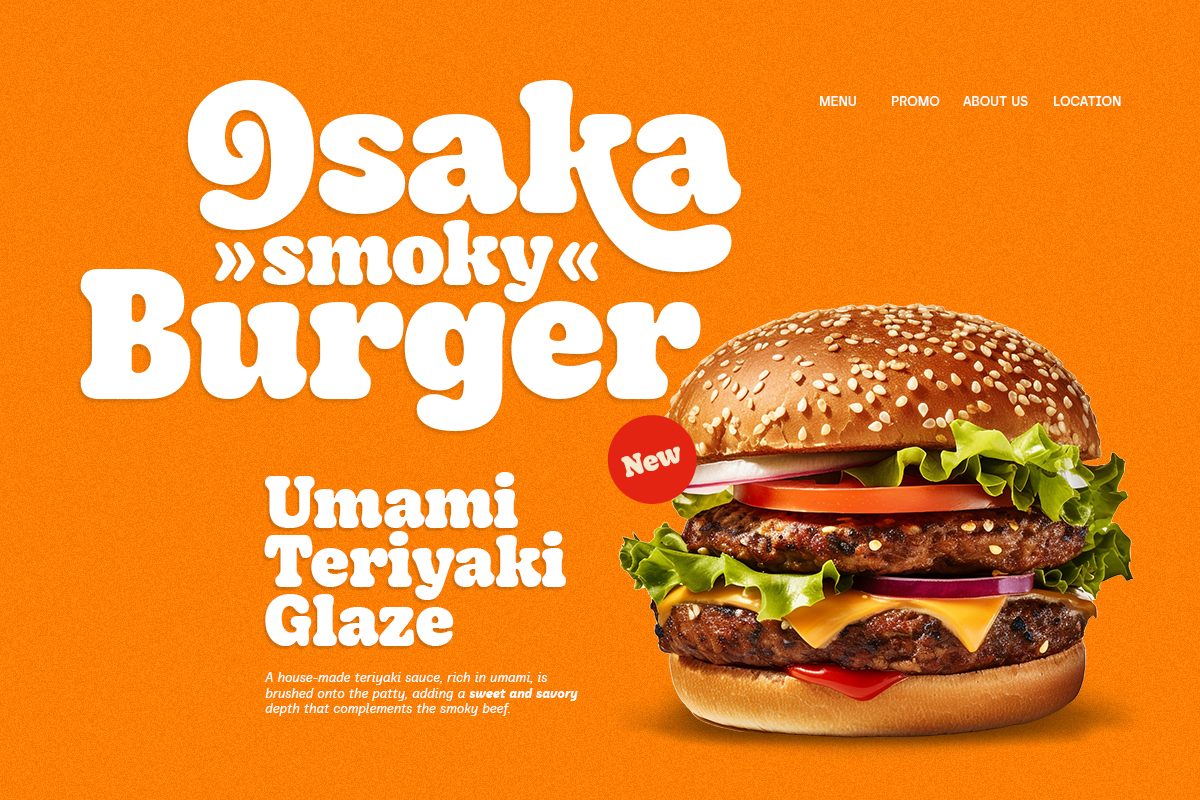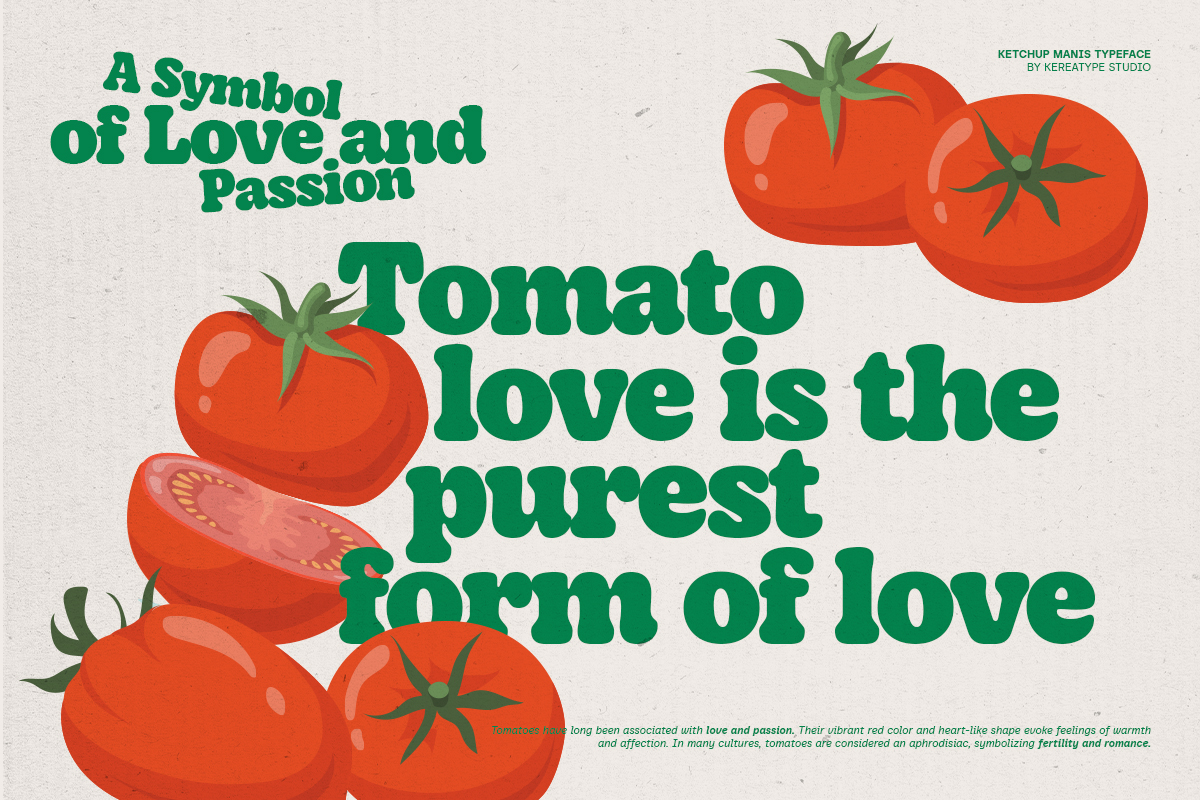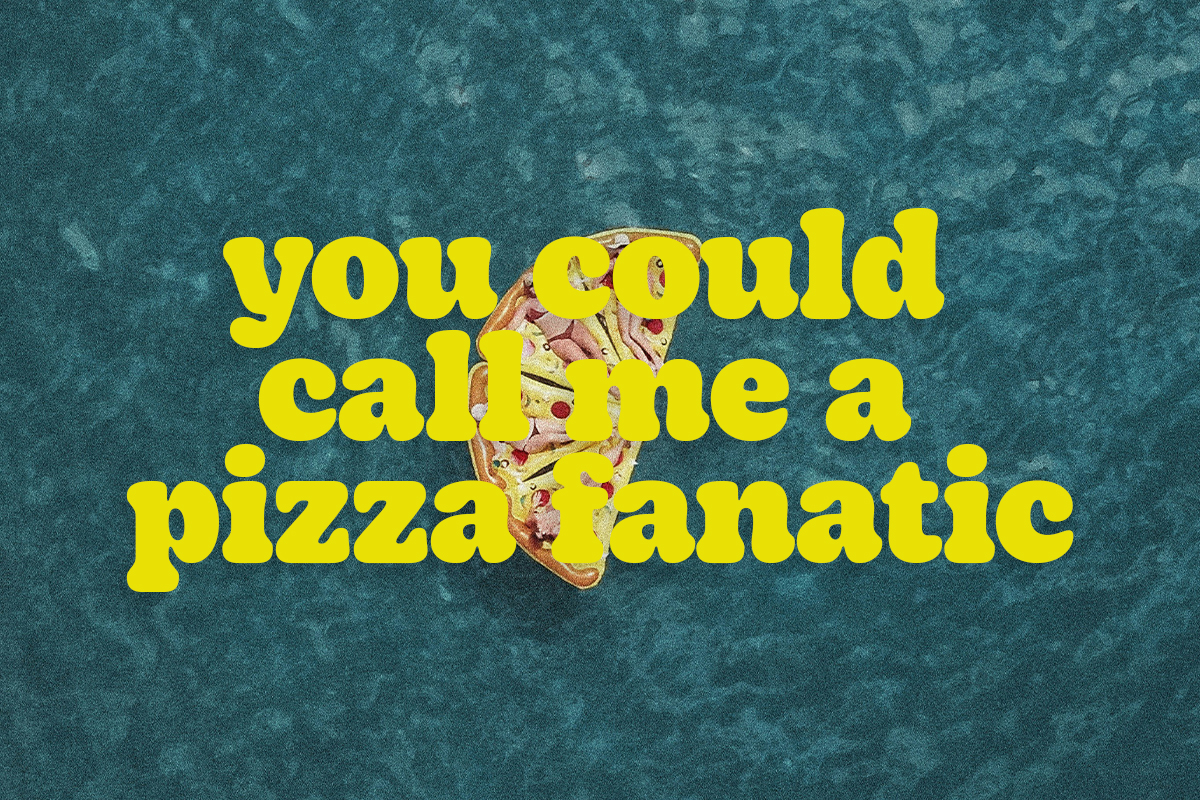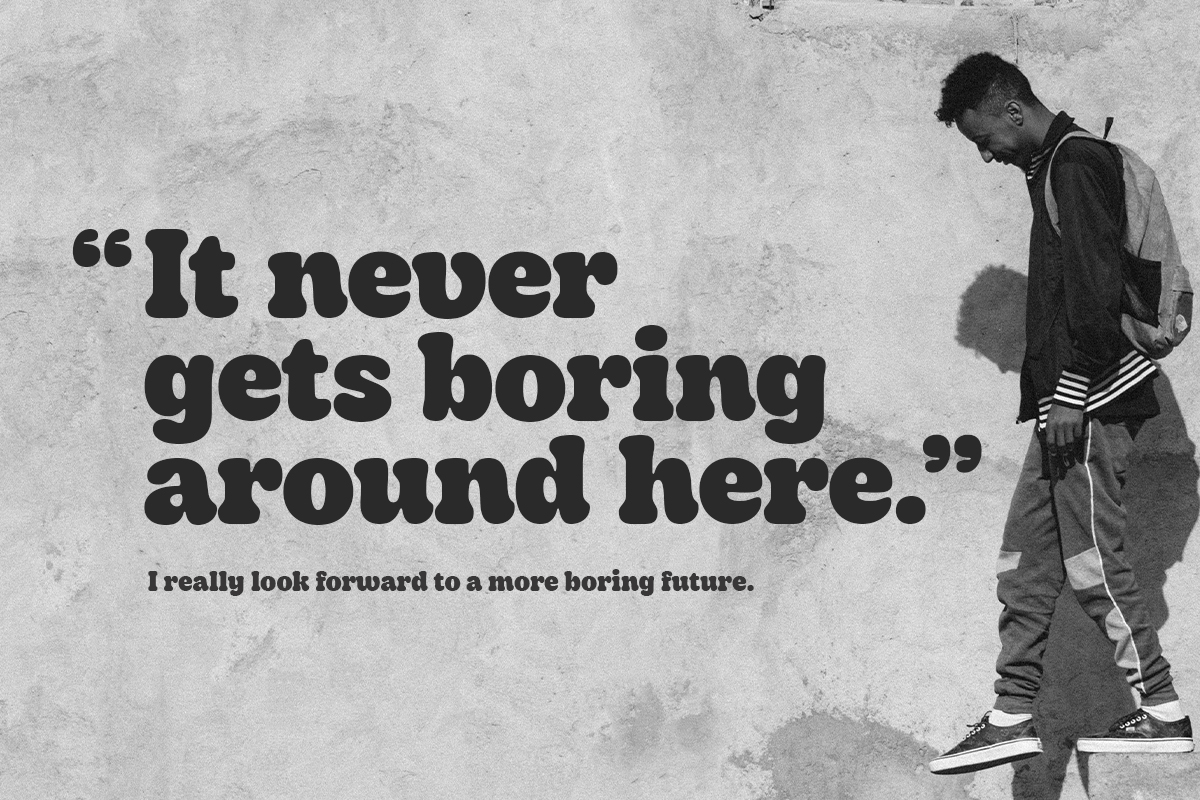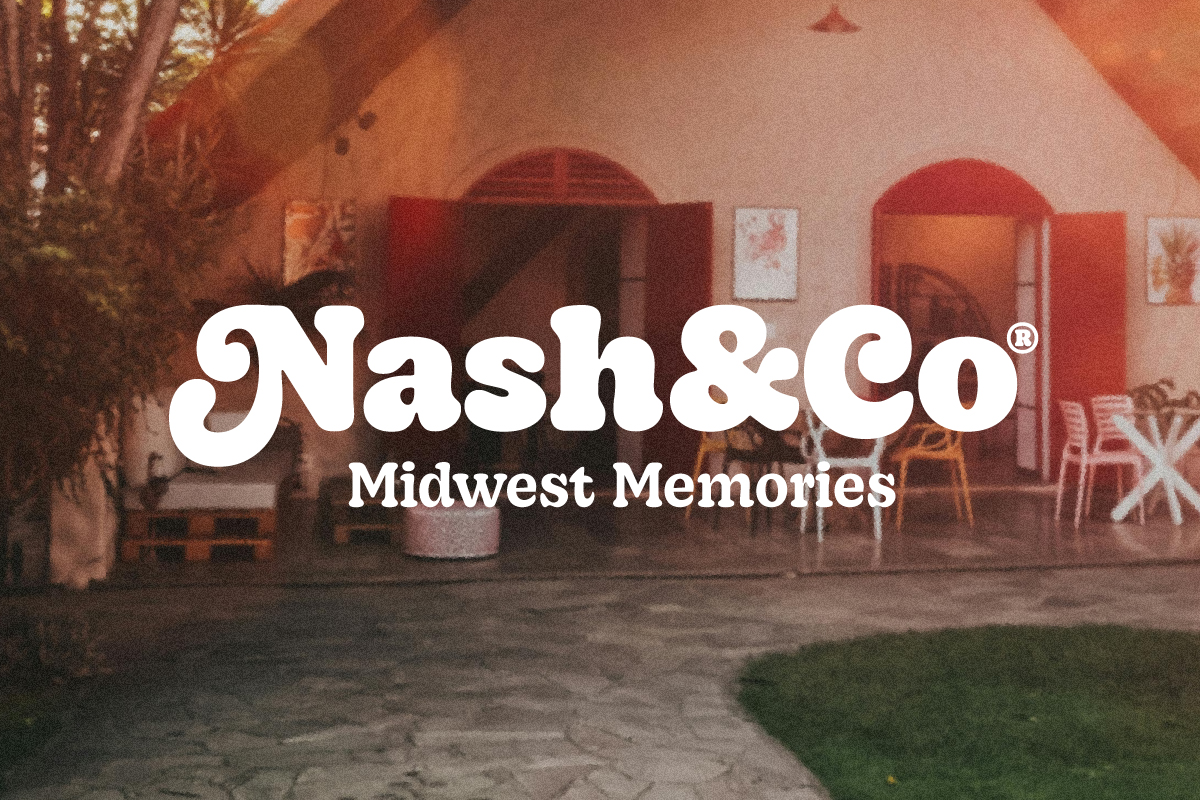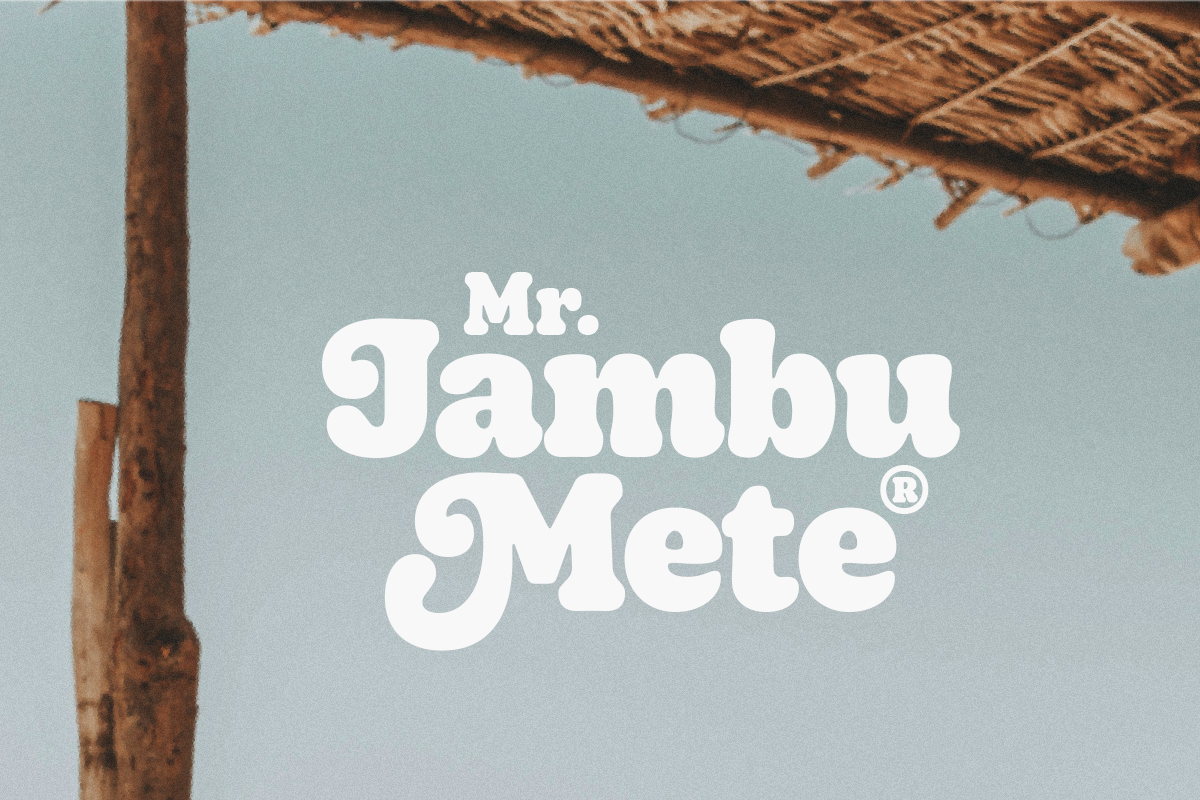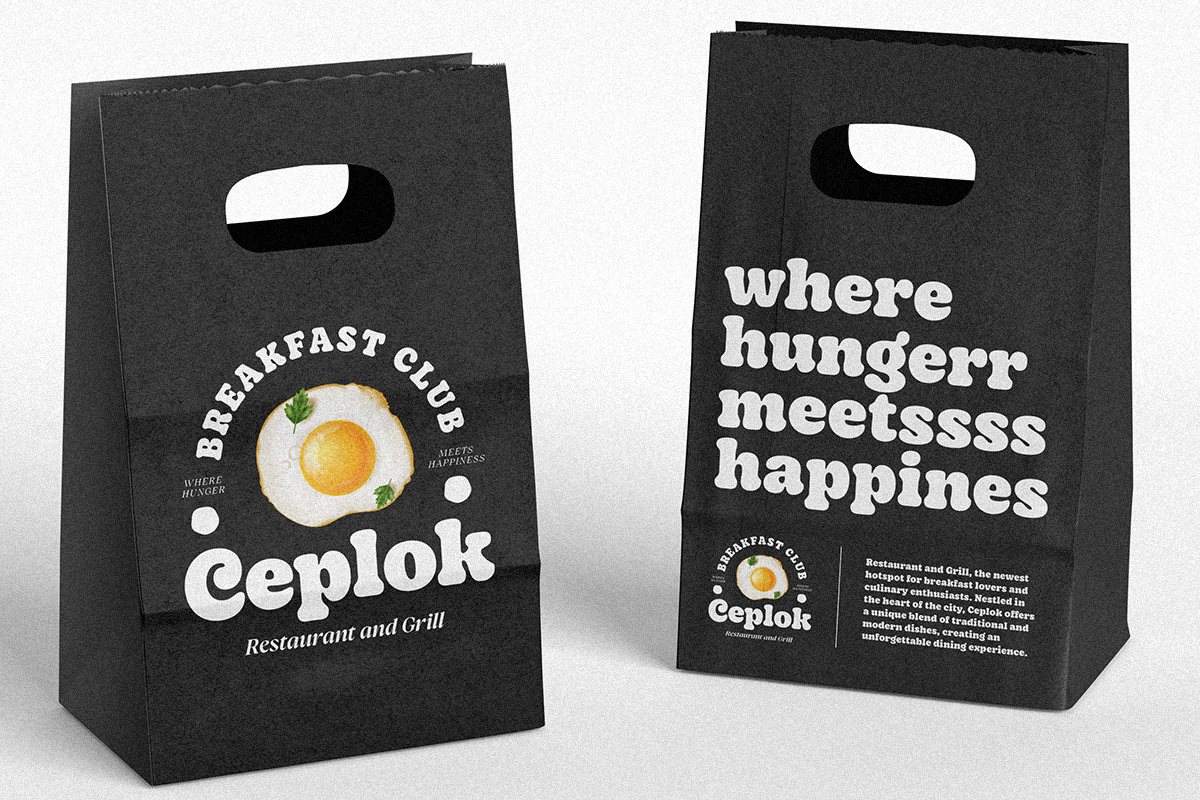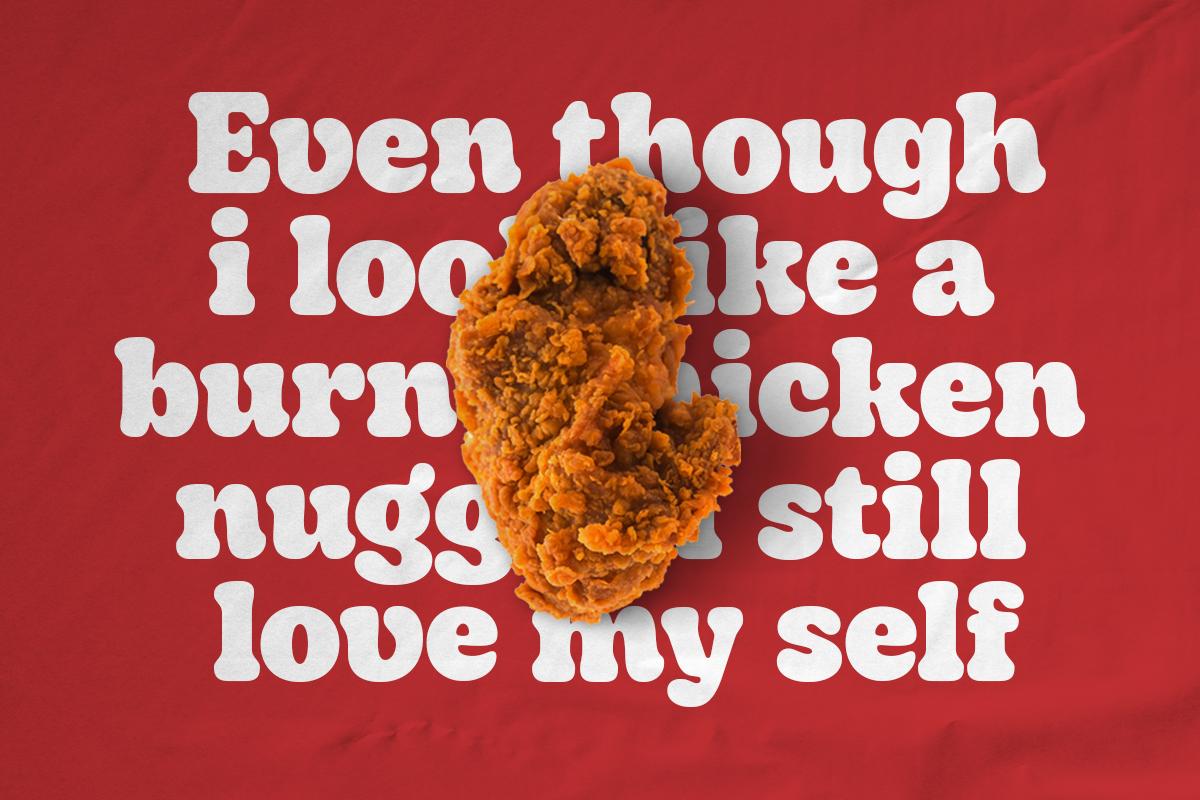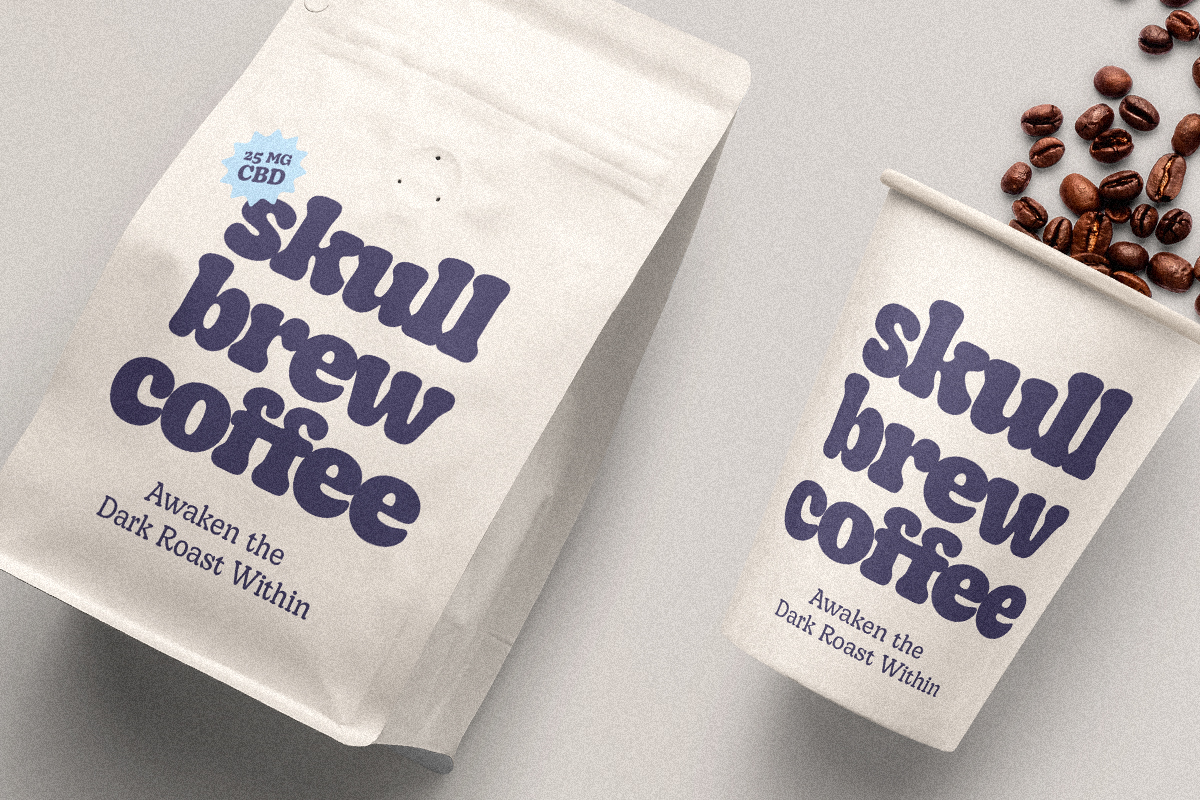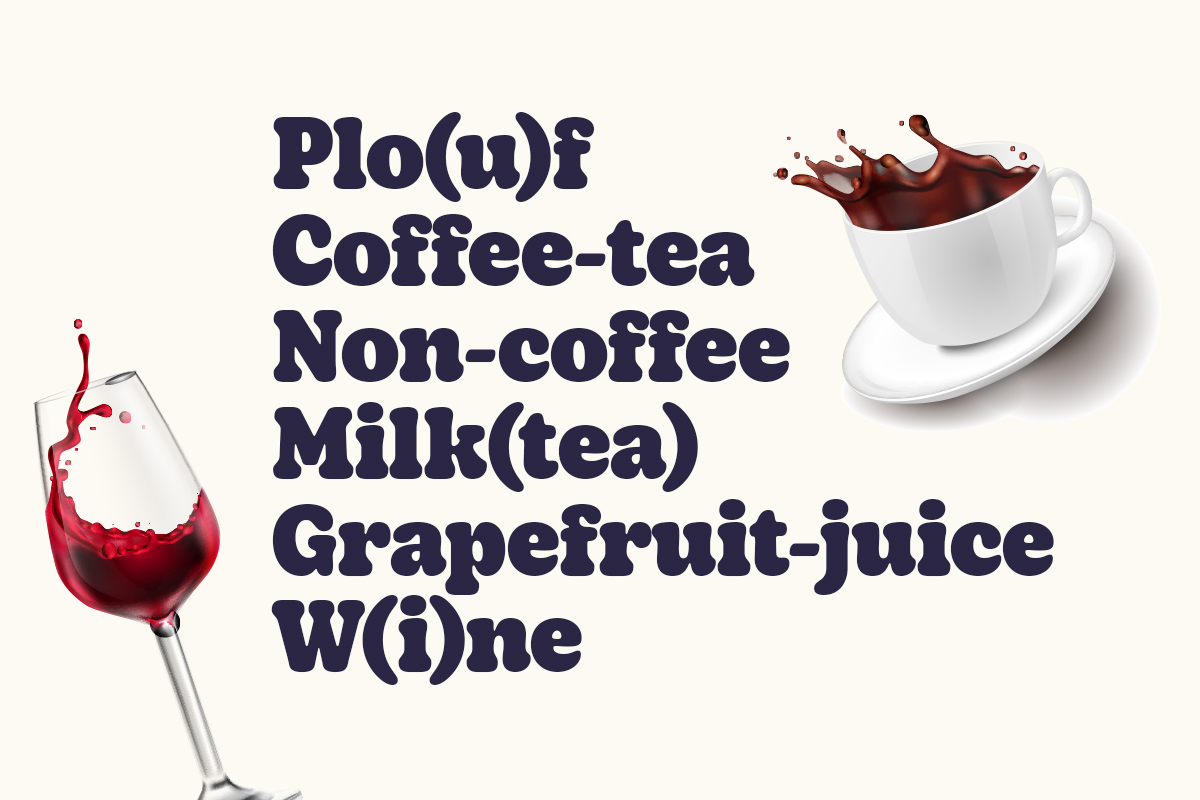
Ketchup Manis
A Bold Vintage Rounded Serif Perfect For Playful Food Packaging, Nostalgic Branding, And Cheerful Display Designs.
Ketchup Manis
Bold Vintage Rounded Playful Serif
Ketchup Manis is a tasty vintage serif font inspired by the nostalgic charm of classic Cooper Black and retro aesthetics. Featuring chunky, rounded letterforms and a cheerful personality, it strikes a perfect balance between timeless warmth and modern appeal. Designed to be irresistibly friendly and approachable, this bold display font is ideal for F&B branding—from pizza and ice cream to tomato sauce labels—as well as children’s merchandise, band logos, and vibrant social media graphics. Whether you’re crafting playful packaging or a standout poster, Ketchup Manis adds a dash of sweetness and a memorable, joyful character to every creative project.